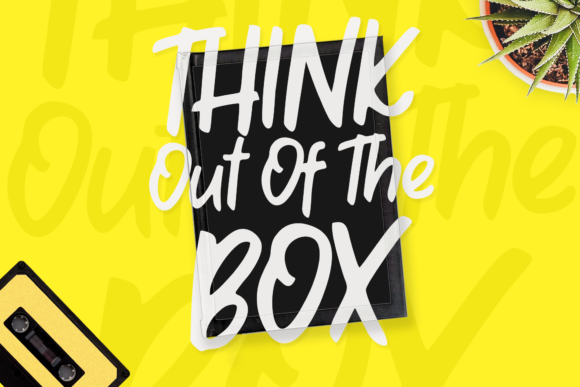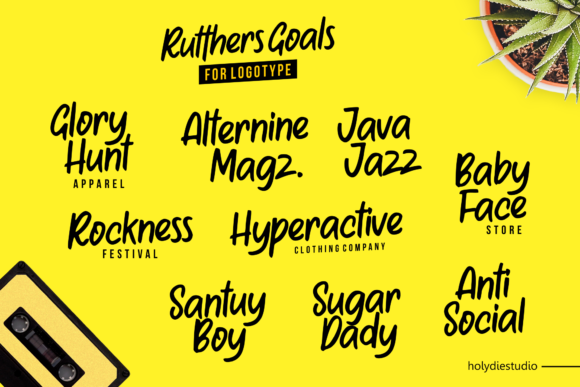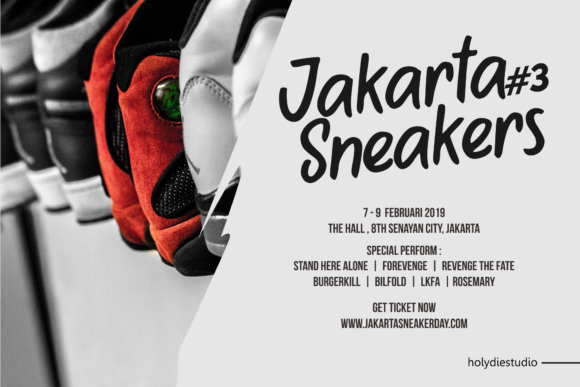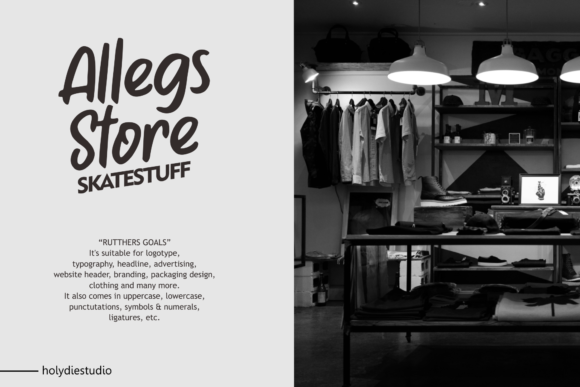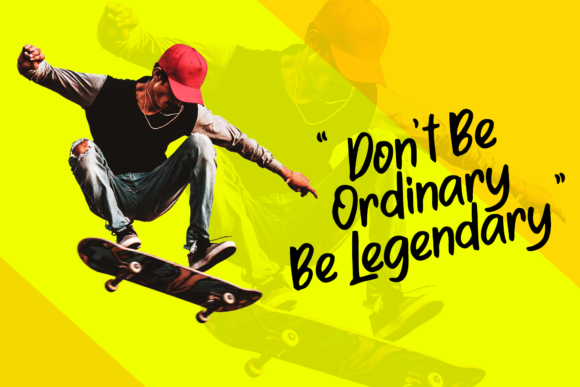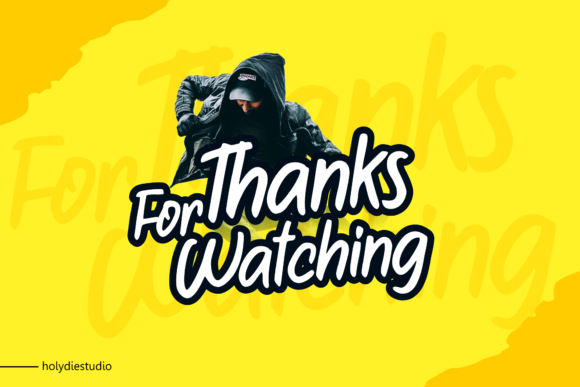
Introduction to Rutthers Goals Font
Have you ever been in the midst of a creative project, struggling to find the perfect font to bring your vision to life? You know, that moment when you’re staring at a blank canvas, searching for the perfect words to match your artistic expression. That’s where Rutthers Goals Font comes in – a highly original and dynamic display font inspired by the smooth lines of markers.
Designed with the needs of designers in mind, Rutthers Goals Font is a valuable resource for any creative project. Its unique style and high-quality design make it an excellent choice for designers looking to add a personal touch to their work. Whether you’re working on a design project that requires a bold and eye-catching font or simply want to add some flair to your social media graphics, Rutthers Goals Font is a great option.
Key Features of Rutthers Goals Font
- High-quality design resource ideal for creative projects, such as posters, flyers, and brochures.
- Unique, modern design with a transparent background, allowing for easy customization and integration with other design elements.
- Perfect for use in various design projects, including branding, advertising, and digital media.
Honest Review: Rutthers Goals Font
I recently came across Rutthers Goals Font, a free download that caught my attention. As a designer, I was excited to see if it lived up to its promise of a high quality, versatile font.
What works well: ✨ The font has a unique, modern aesthetic that makes it perfect for creative projects that require a touch of sophistication. The transparent background is a nice touch, allowing designers to easily layer it with other elements.
Some limitations: ⚠️ While the font is free to download, it’s not without its limitations. The character set is limited, and it may not be suitable for projects that require a wide range of special characters or languages.
Here are some key features to consider:
- High quality, modern aesthetic
- Unique, versatile design
- Limited character set
- Not suitable for projects requiring special characters or languages
Overall, I’d say Rutthers Goals Font is a solid addition to any designer’s toolkit. While it has its limitations, it’s a great resource for creative projects that require a touch of sophistication.
Tips for Getting the Most Out of Rutthers Goals Font
Experiment with different font sizes and styles to create a visually appealing design. Use Rutthers Goals Font in combination with other design elements to create a cohesive look.
Rutthers Goals Font is ideal for creative projects such as infographics, posters, and social media graphics. It is also suitable for use in presentations and reports.